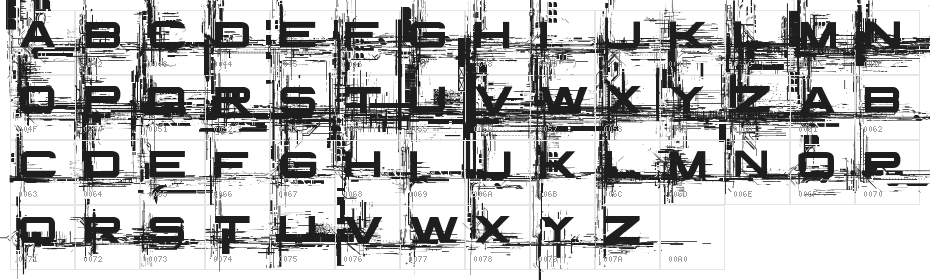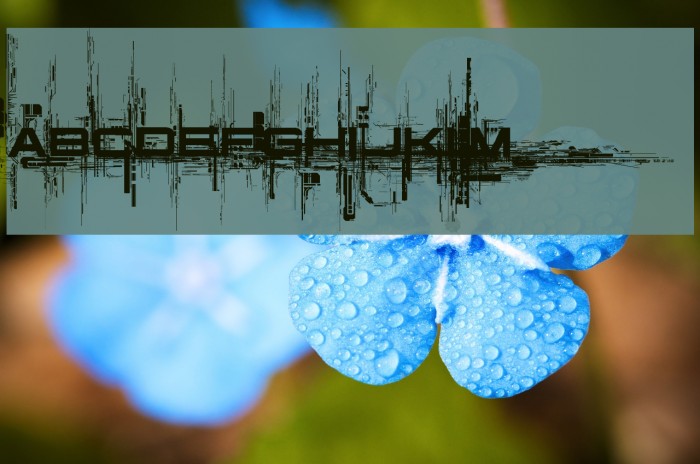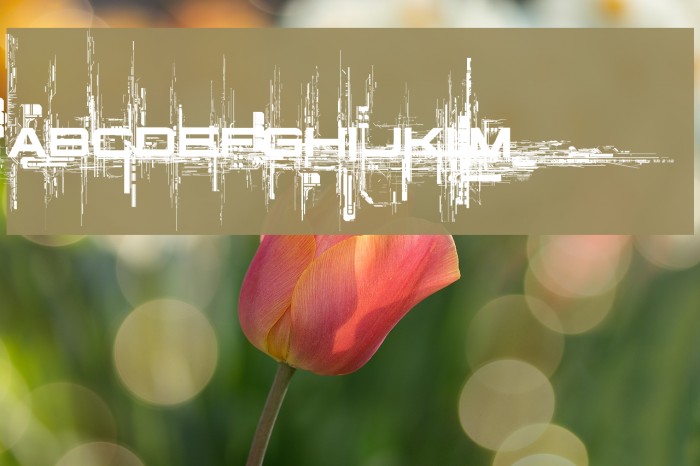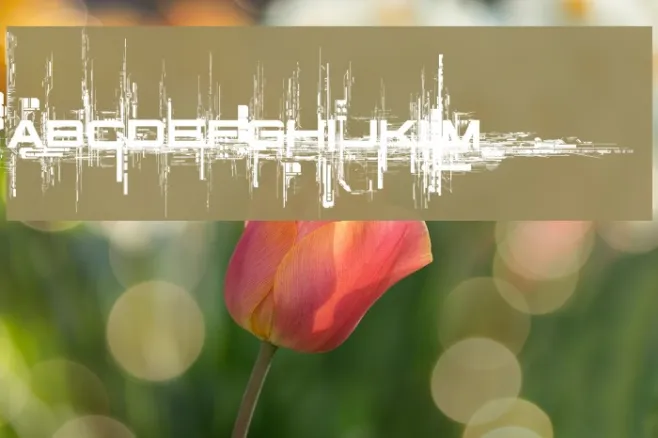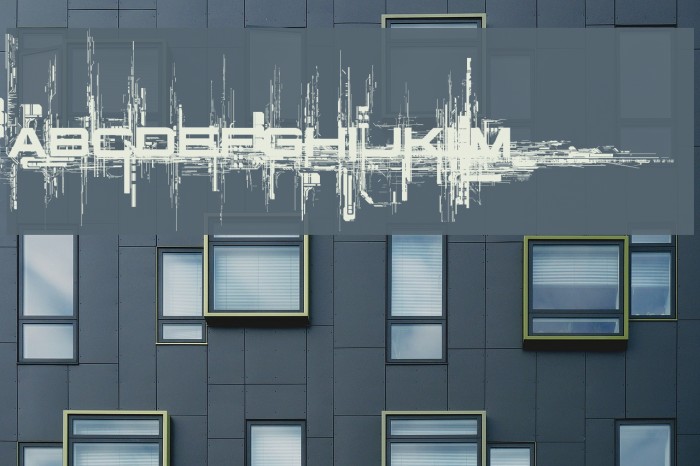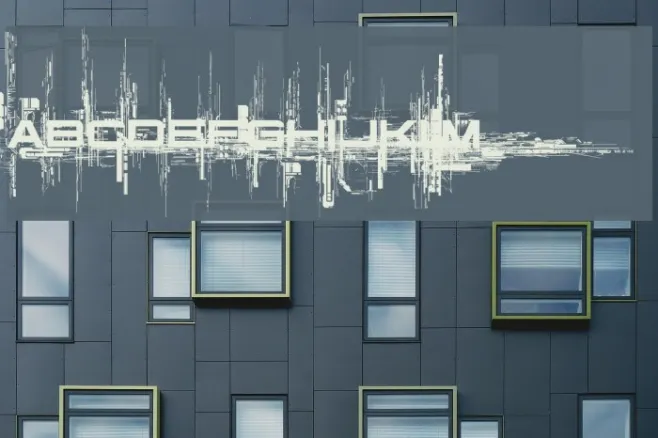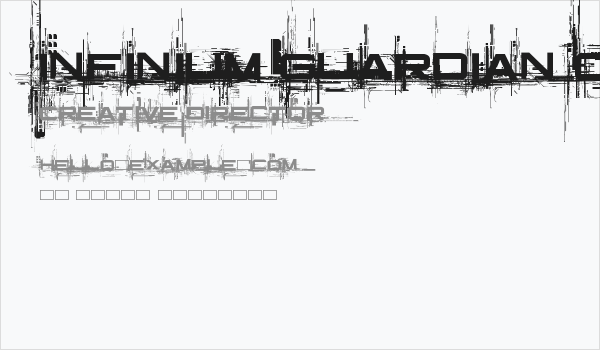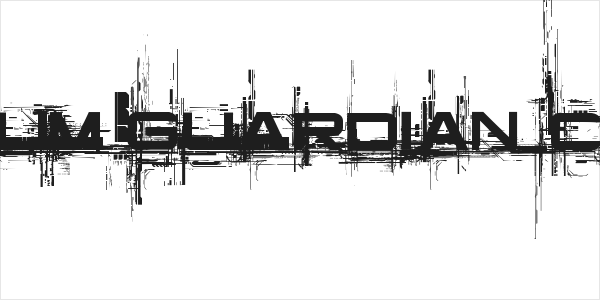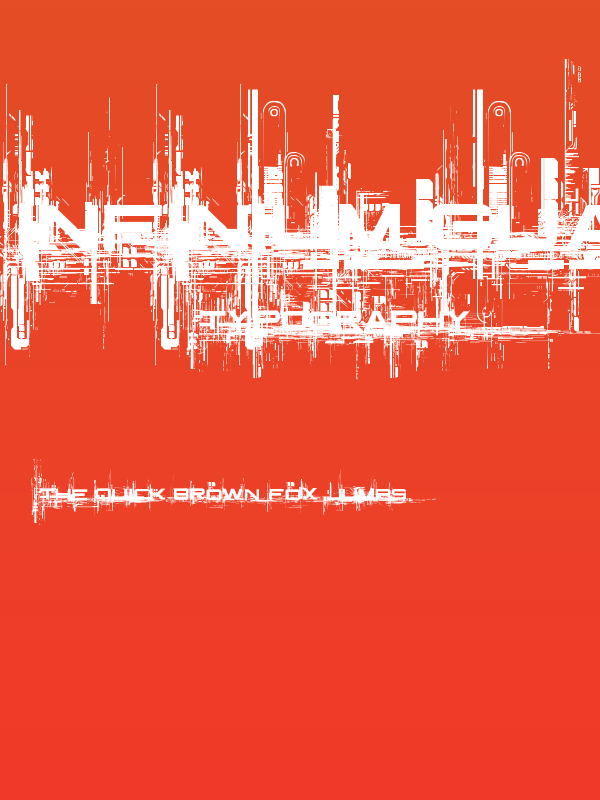
Infinium Guardian Caps Font
Infinium Guardian Caps Description
This font features a highly decorative and distressed style, characterized by its fragmented and glitch-like appearance. The letters are bold and uppercase, with a futuristic and digital aesthetic that suggests a sense of chaos and disruption. The strokes are irregular, with varying thicknesses that create a high contrast effect. The overall design is complex, with intricate details that give it a unique and edgy look. This font is ideal for projects that require a bold statement or a modern, tech-inspired theme.
| Overall Style | Modern, Futuristic, Edgy |
| Proposed Projects | Ideal for sci-fi themed posters, album covers, video game titles, and digital art projects. |